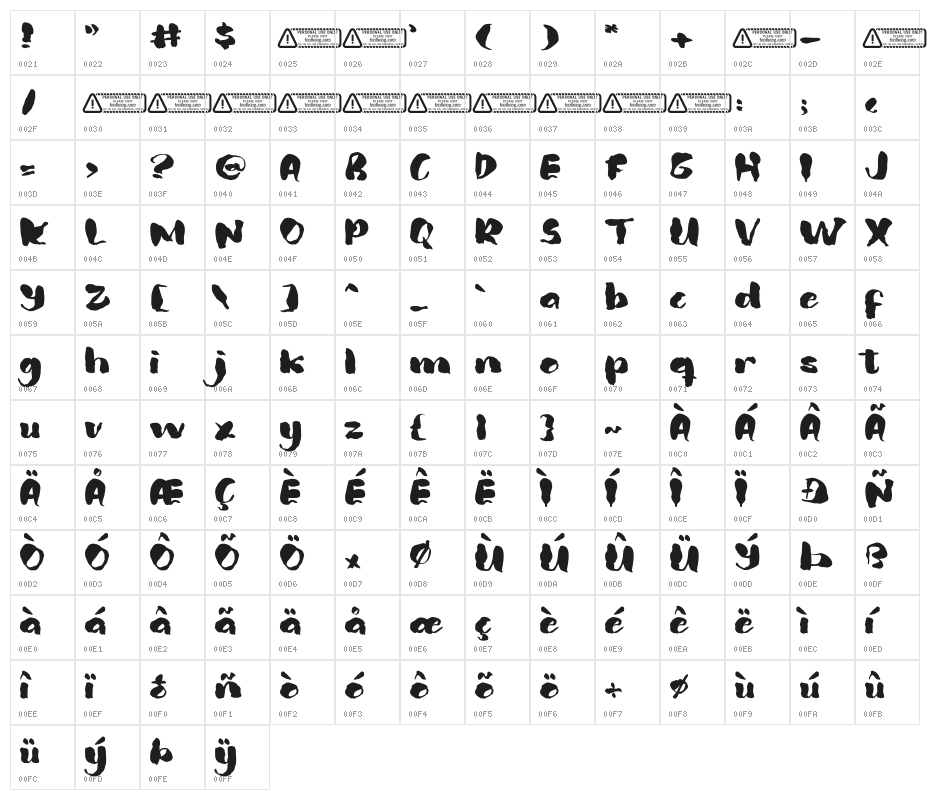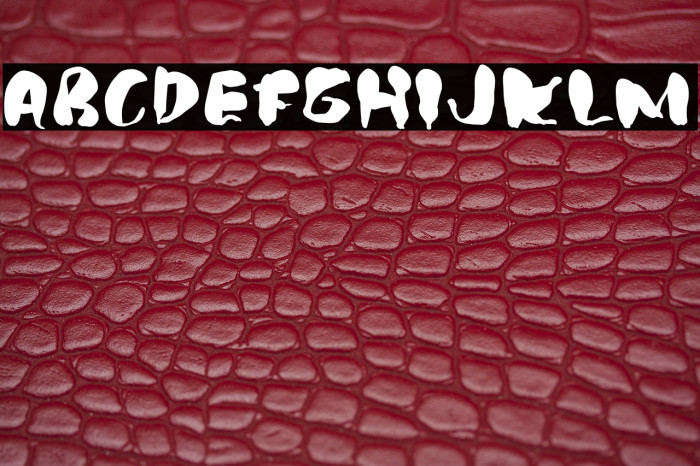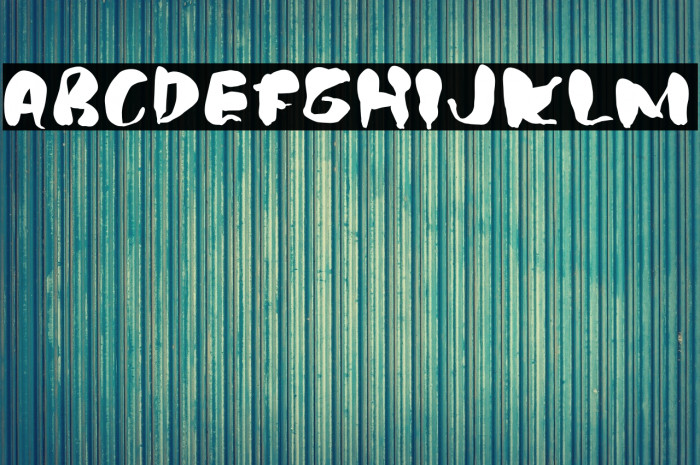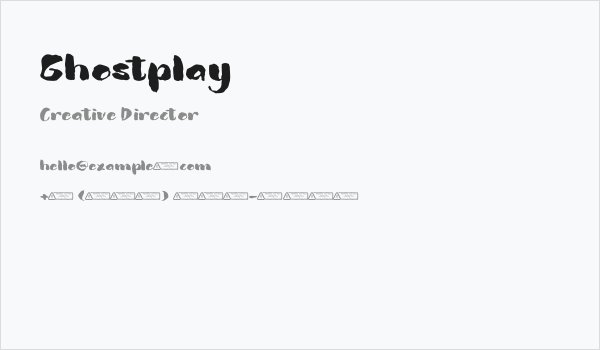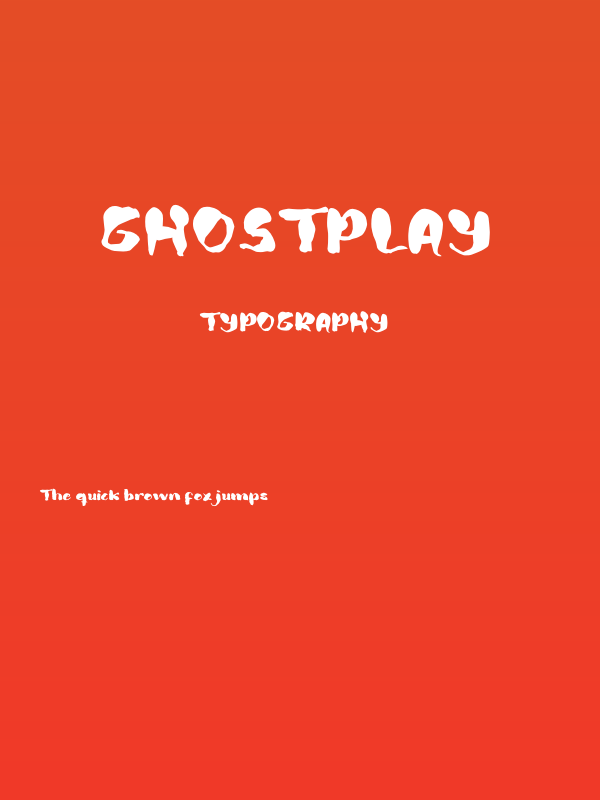
Ghostplay Font
Ghostplay Description
This font exhibits a bold and expressive style with a brush-like texture, giving it a dynamic and artistic appearance. The characters are crafted with irregular edges and varying thickness, creating a sense of movement and energy. The uppercase and lowercase letters maintain a consistent design, while the numbers and special characters complement the overall aesthetic. The font's unique style makes it suitable for creative and eye-catching designs.
| Proposed Projects | Ideal for posters, album covers, branding projects, and any design requiring a bold, artistic touch. |